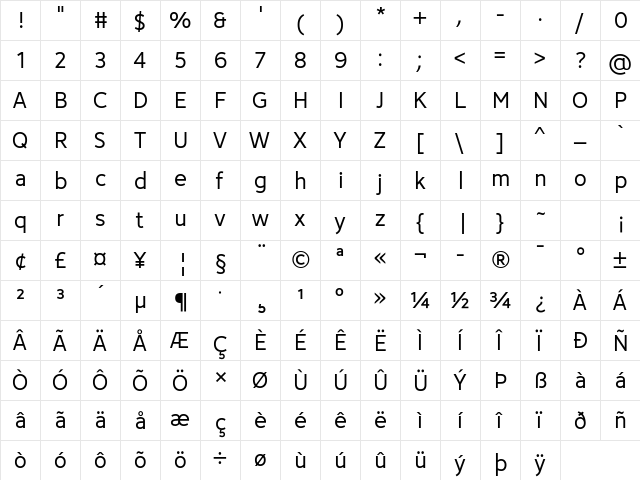
Avancement 2020 Regular
| Foundry | Daniel Lyons Entertainment |
| Designer | Dan P. Lyons |
Design Context for Avancement 2020 Typeface
Avancement 2020 takes a measured approach to typography — its balanced proportions and neutral character make it a reliable workhorse for both digital and print work.